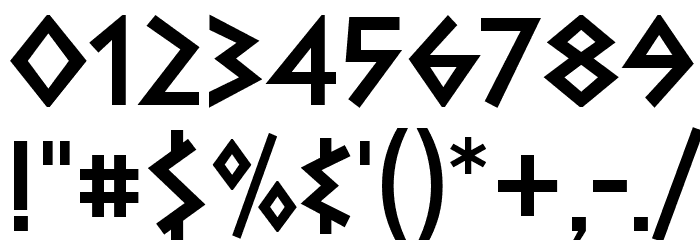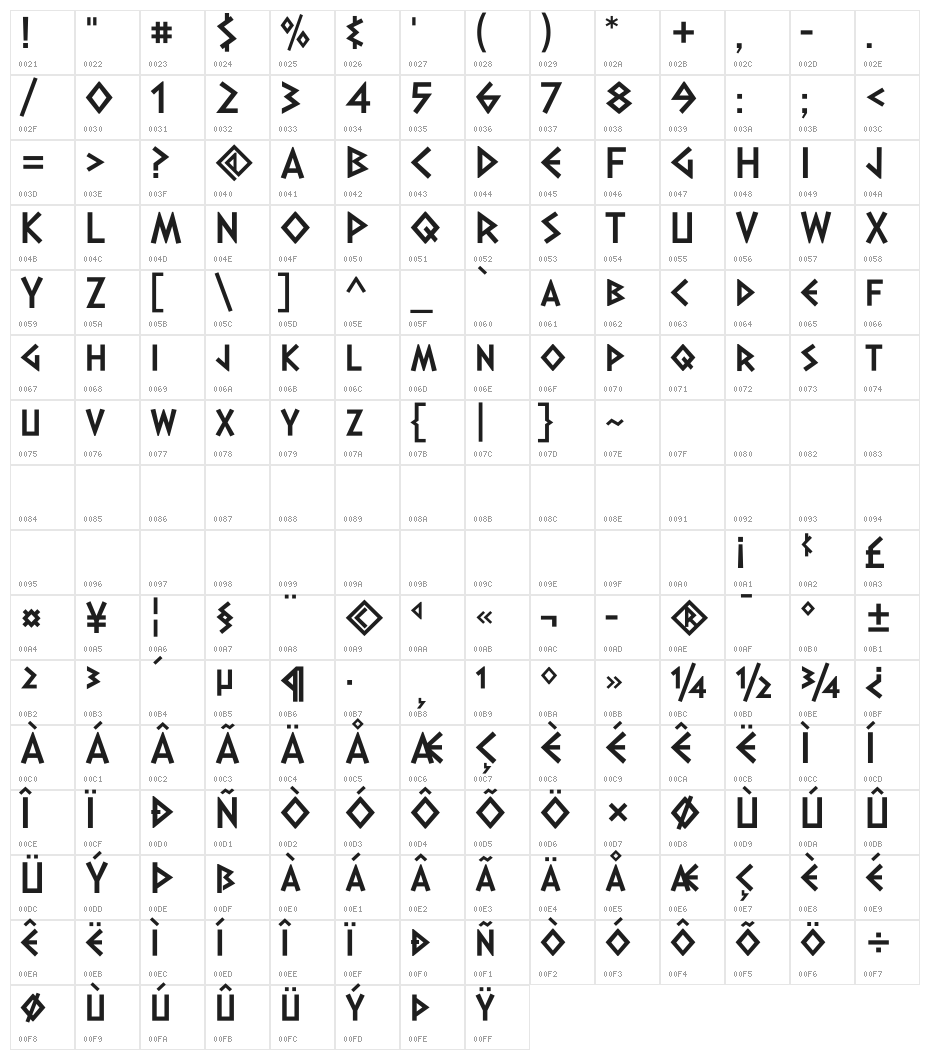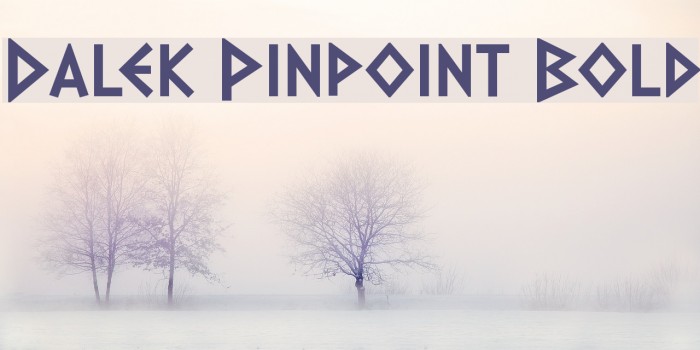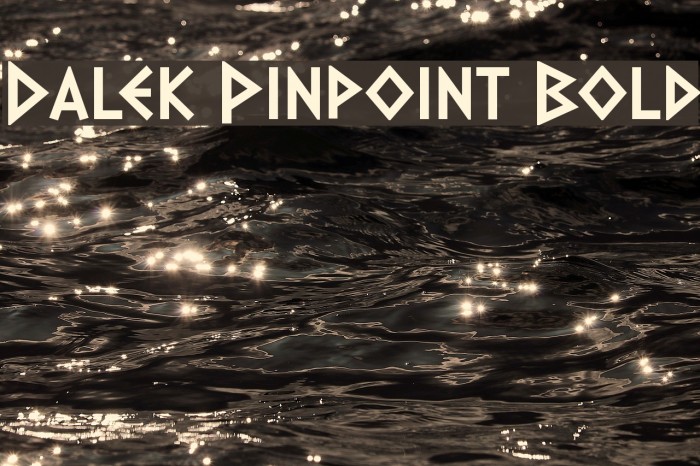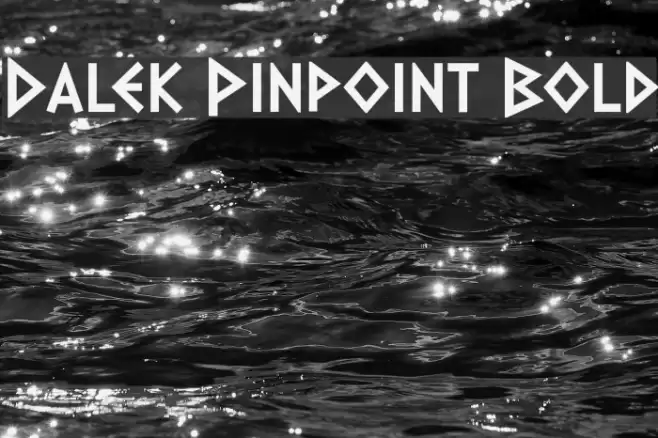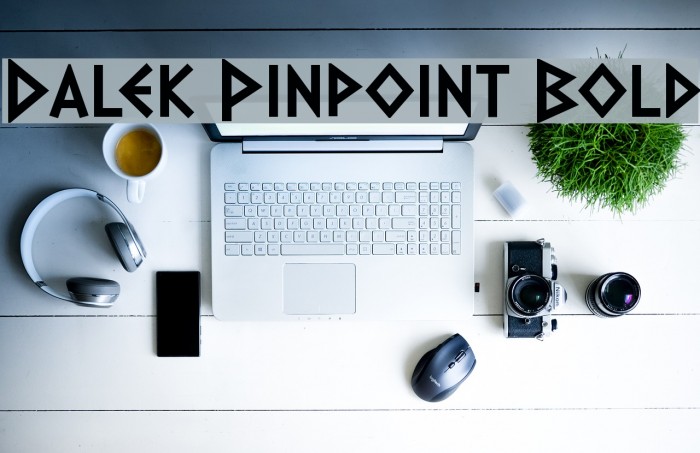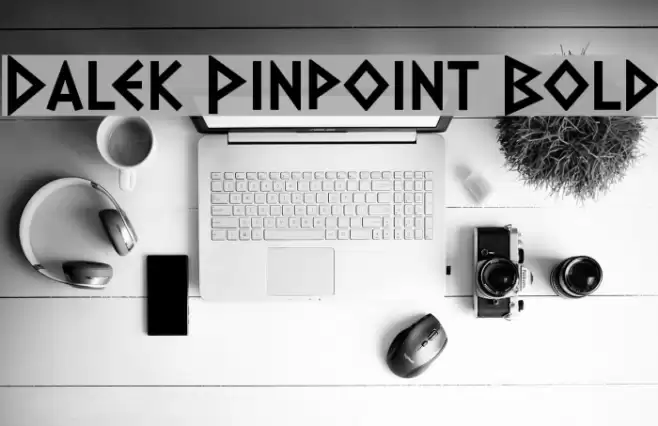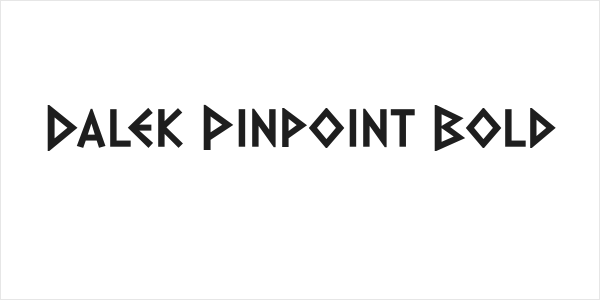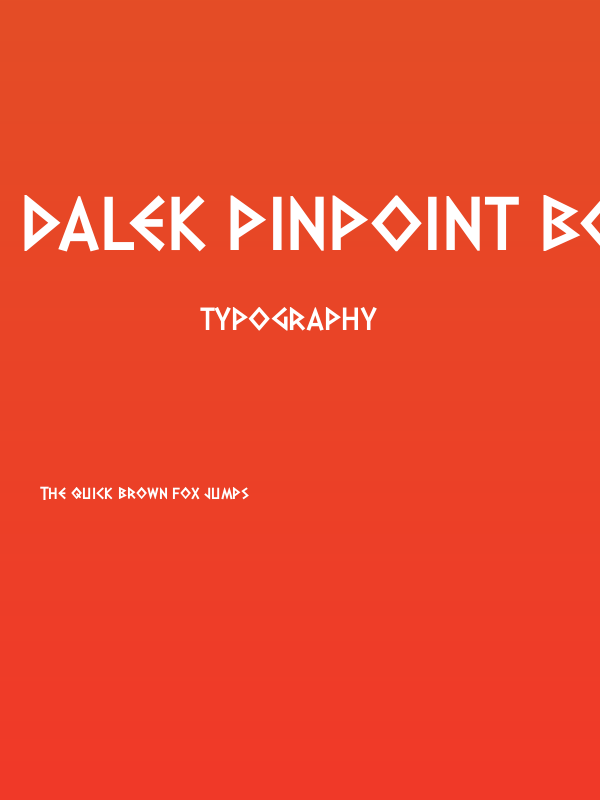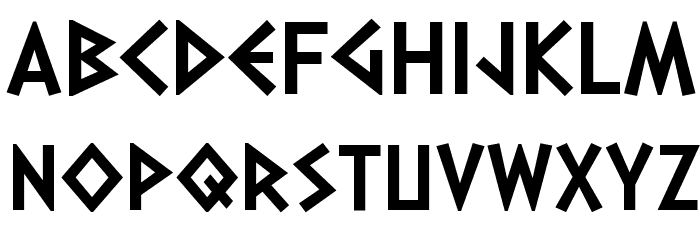
Dalek Pinpoint Bold Font
Dalek Pinpoint Bold Description
This font features a bold and geometric design, characterized by sharp angles and a futuristic aesthetic. The uppercase letters are distinct with their pointed edges and symmetrical forms, creating a sense of movement and energy. The numerals and special characters maintain this angular style, ensuring consistency across all glyphs. The overall appearance is striking and modern, making it suitable for attention-grabbing headlines or logos. Its unique style is reminiscent of science fiction themes, offering a bold statement in any design project.
| Proposed Projects | Ideal for sci-fi themed posters, modern branding, video game titles, and tech-related logos. |